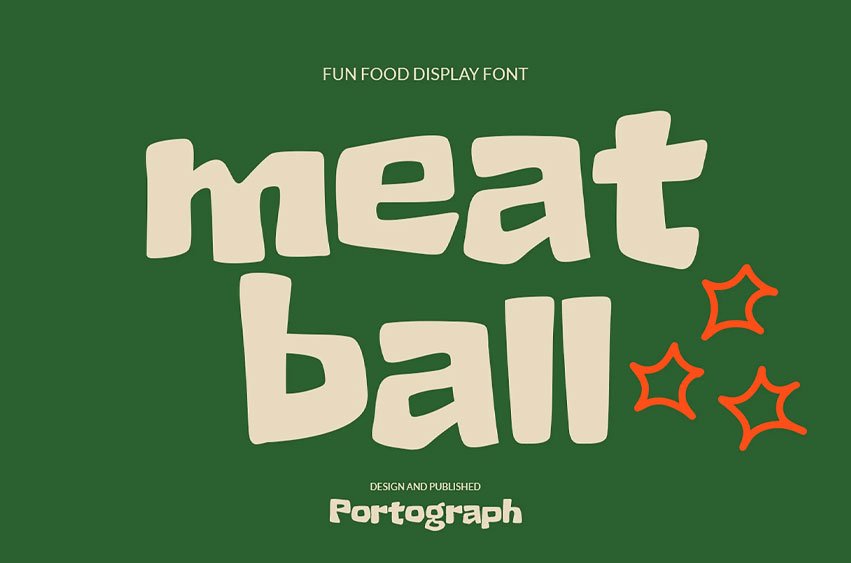
Meat Ball Font is a fun and bold display font designed to bring energy and personality into food branding and promotional designs.
With its chunky letterforms, soft curves, and friendly appearance, this font instantly creates a warm and inviting visual impact.
Perfect For:
- Restaurant branding
- Burger & fast food shops
- Café & bakery menus
- Food packaging
- Promo posters & banners
- Street food branding
- Social media marketing
- Product labels